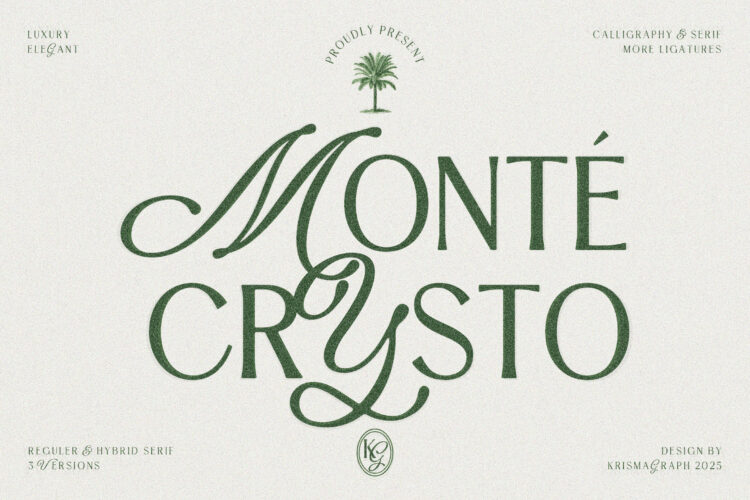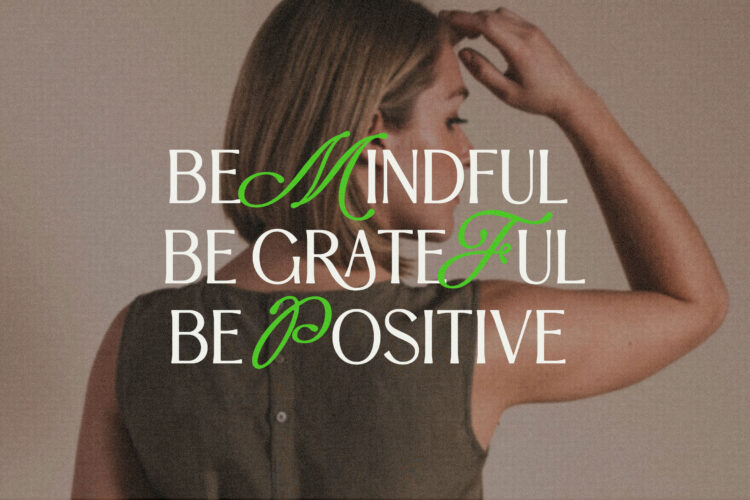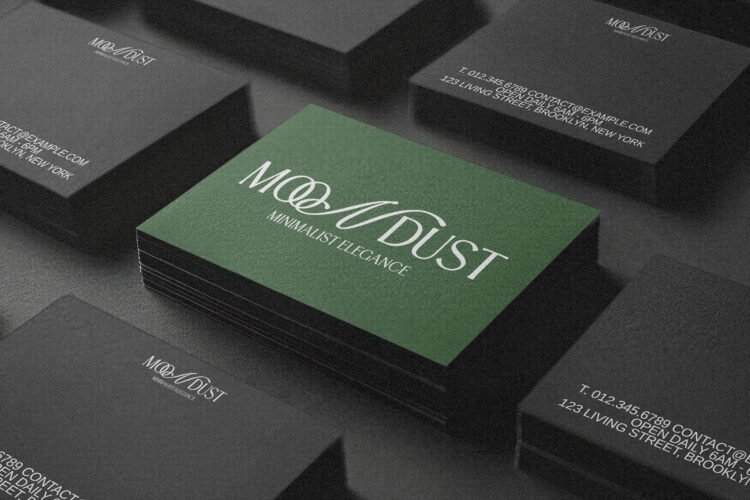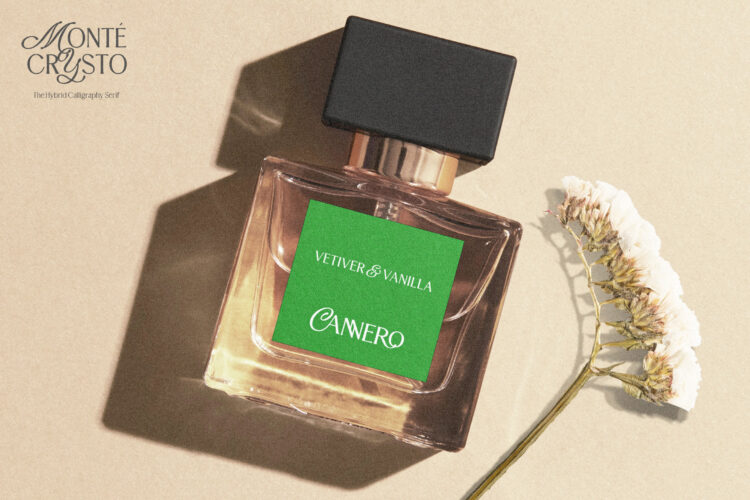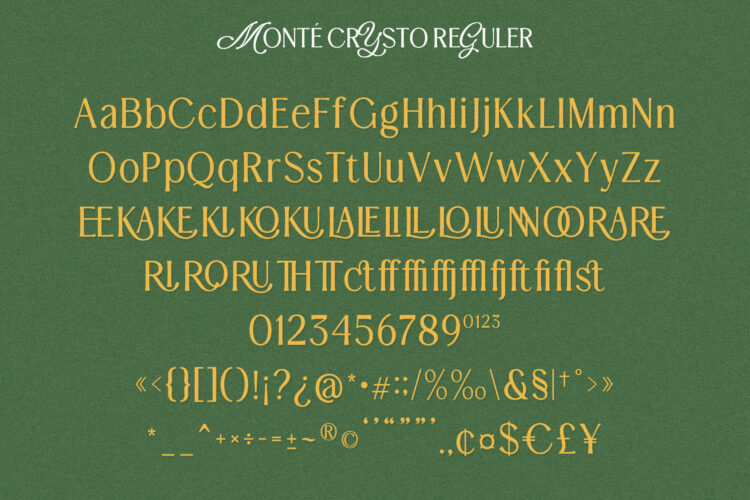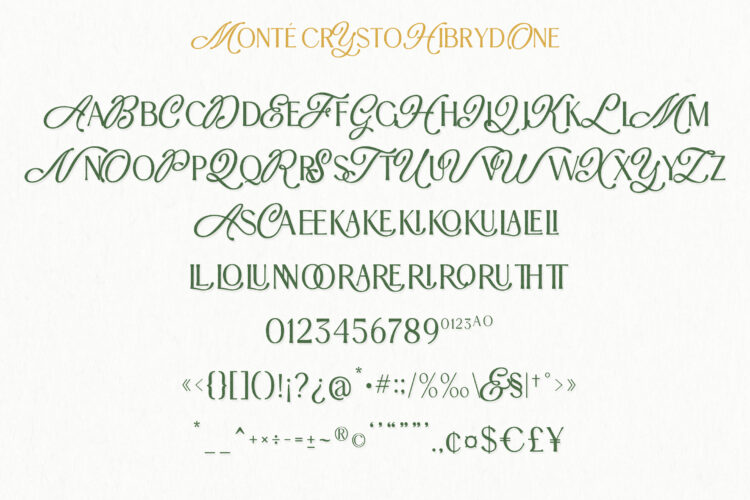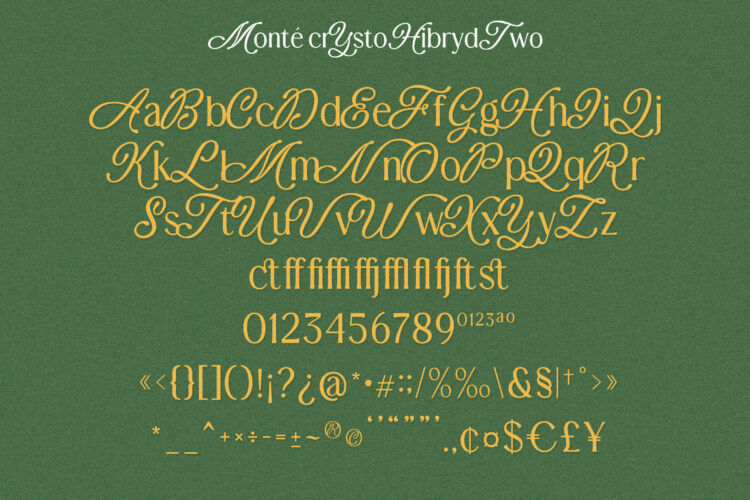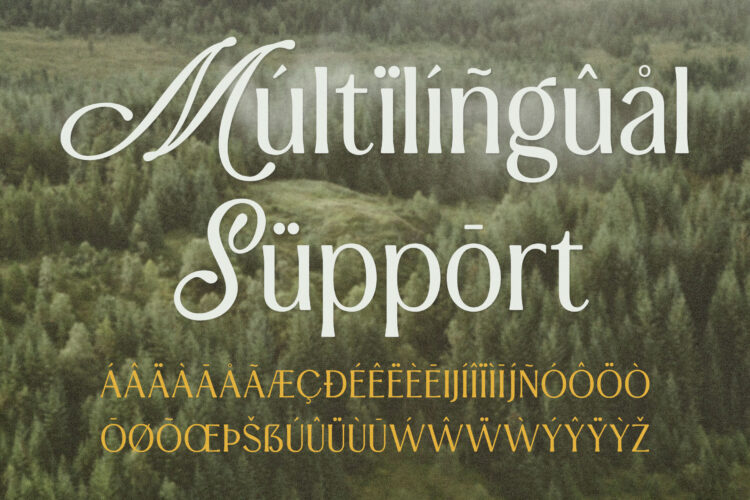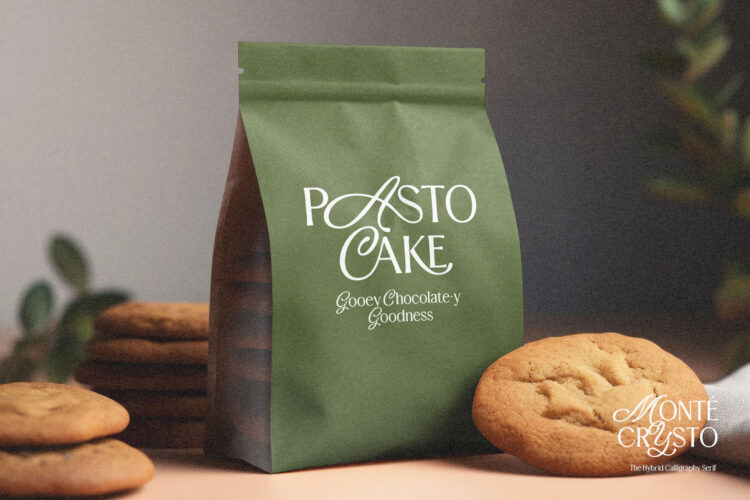
Monte Crysto is a mesmerizing fusion of calligraphy and serif, radiating timeless elegance with a touch of nostalgic charm. Designed to elevate any creative project, this sophisticated typeface comes in three distinct versions: Regular, Hybrid One, and Hybrid Two—each offering its own unique character.
With its refined details and graceful flow, Monte Crysto adds depth and sophistication to branding, editorial layouts, and social media visuals. Its versatile aesthetic opens the door to endless creative possibilities, making it an essential addition to any designer’s toolkit.
FEATURES :
– Ligatures
– Uppercase and Lowercase letters
– Numbering and Punctuations
– Multilingual Support including Afrikaans, Albanian, Basque, Catalan, Danish, Dutch, English, Estonian, Faroese, Filipino, Finnish, French, Galician, German, Icelandic, Indonesian, Irish, Italian, Malay, Norwegian Bokmål, Portuguese, Spanish, Swahili, Swedish, Zulu
Monte Crysto | Hybrid Serif